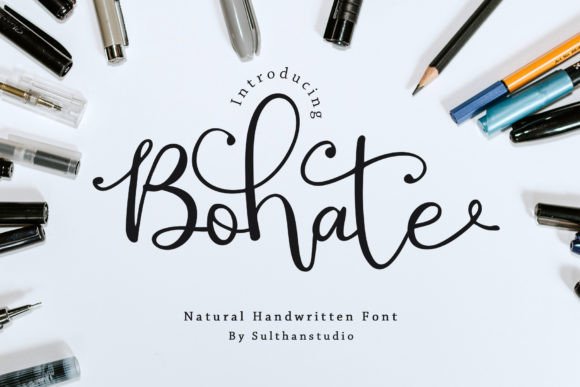
The Sweet Spot: Discovering the Charm of Bohate Font
I’ll never forget the moment I stumbled upon Bohate Font while working on a whimsical craft project for a client. I was on a mission to find the perfect handwritten font that could capture the playful essence of the design. Hours of scrolling through font libraries had left me frustrated, until I finally laid eyes on Bohate. Its sweet, friendly curves instantly won me over, and I knew I had found the one. In this article, I’ll share my love for Bohate, its unique features, and how to make the most of this beautiful font in your designs.
An Honest Review: What I Love (and What to Watch Out For)
Bohate Font has quickly become a staple in my design toolkit, and here’s why:
- ✨ Unique yet approachable: Bohate’s natural, handwritten style strikes the perfect balance between being distinctive and easy to read.
- ✅ Versatile: This font can effortlessly adapt to a wide range of projects, from playful crafts to more sophisticated designs.
- 💫 Emotional connection: Bohate’s friendly vibe helps create an instant emotional connection with your audience, making it perfect for designs that aim to feel approachable and warm.
While Bohate has won my heart, it’s not without its quirks:
- ⚠️ Legibility at small sizes: Like many handwritten fonts, Bohate can become a bit tricky to read at very small sizes. It’s best used at larger sizes where its charm can shine.
- 🤔 Overuse of swashes: While Bohate comes with beautiful swashes, using too many can make your text look cluttered. Use them sparingly to add a touch of elegance.
The Story Behind Bohate: A Designer’s Inspiration
While the true origins of Bohate might be shrouded in mystery, it’s easy to imagine a designer with a passion for handwriting and a love for creating something both unique and approachable. Picture a quiet afternoon spent jotting down notes and ideas in a journal, the pen gliding effortlessly across the page, leaving behind a trail of sweet, cursive letters. This is the essence of Bohate – a font born from a love of handwritten notes and a desire to share that warmth with the world.
| Font Name | Bohate Font |
| Author | Sulthan Studio |
| What makes Bohate unique? | Bohate’s natural, handwritten style and friendly vibe make it stand out. Its unique yet approachable design allows it to adapt to a wide range of projects. |
| Is Bohate suitable for body text? | While Bohate is beautiful, it’s best used for headings or short paragraphs due to its script nature. For longer body text, consider a more traditional font. |
| Does Bohate support OpenType features? | Yes, Bohate comes with OpenType features like swashes and stylistic alternates. Use these to add a touch of elegance and uniqueness to your designs. |
In conclusion, Bohate Font is a sweet and friendly addition to any designer’s toolkit. Its natural style, unique charm, and versatility make it perfect for a wide range of projects. With its ease of use across various platforms and support for OpenType features, there’s no limit to what you can create with Bohate. So go ahead, let your imagination run wild, and see where Bohate takes you! 🌟